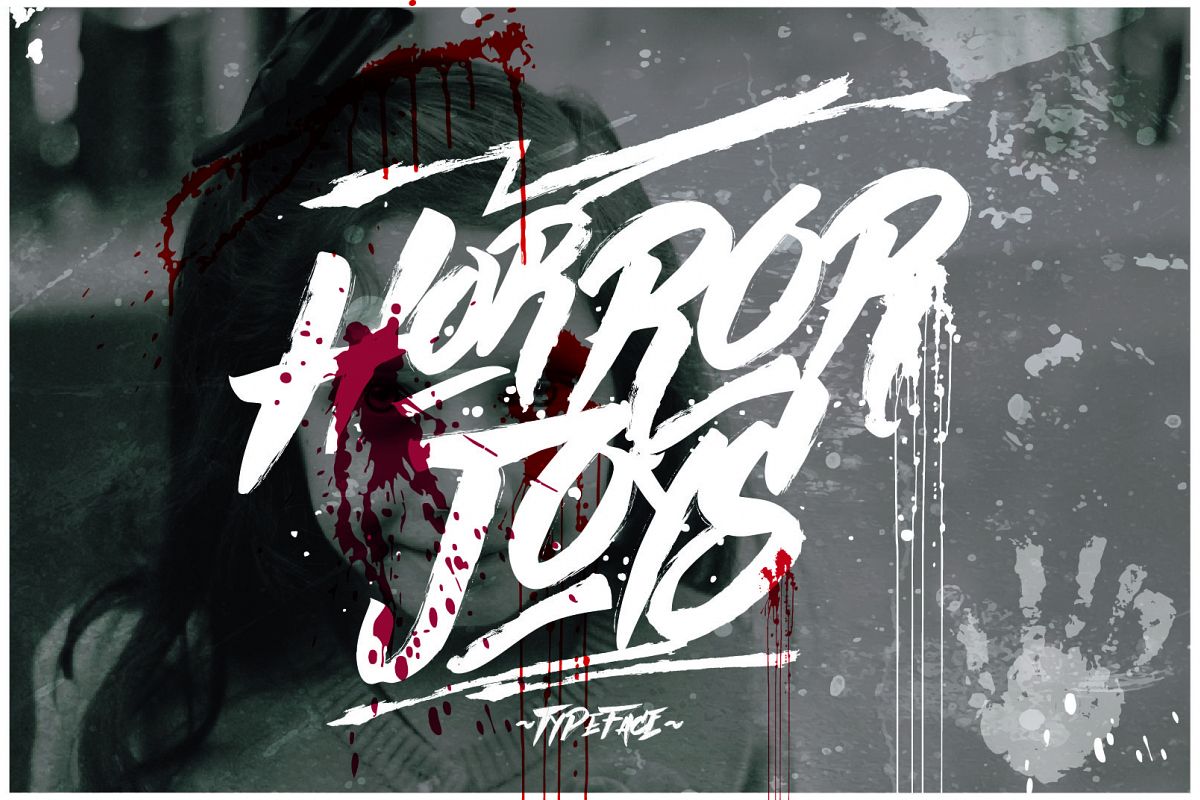
Horror Joys
Horror Joys Typeface inspired by a horror movie very enjoyable. This font is handmade, with the aim that feels creepy when applied into the design that relate to the horror movie, movie posters, poster loud music, and other similar designs. Horror Joys Typeface is perfect for those of you who like mystery, myths and ghost stories.